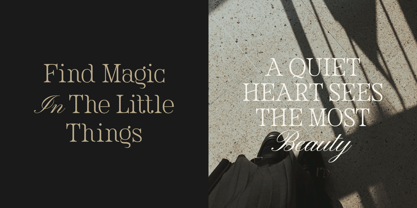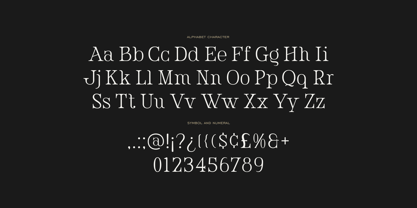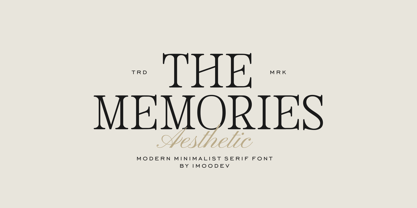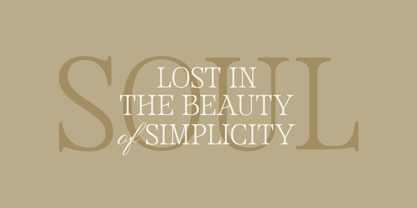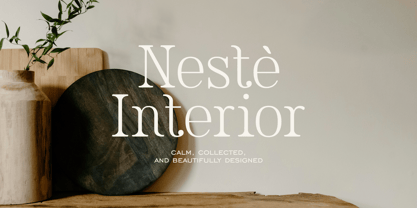
The Memories
Die Schriftfamilie The Memories wurde von Aulia Savira Putri entworfen und von Imoodev veröffentlicht. The Memories enthält 1 Stile. Mehr über diese Familie
The Memories is a timeless and elegant editorial serif font that brings a touch of classic sophistication to any project. This font is crafted with a keen eye for detail, featuring a beautiful contrast between its thick and thin strokes, which creates a refined and highly readable text.
The letterforms are based on traditional typography, with graceful, bracketed serifs that make it perfect for both headlines and body text. Perfect for this font is incredibly versatile and works wonderfully for luxury branding, fashion, wedding invitations, editorial design, fashion layouts, quote graphics, logos, and any project requiring a blend of vintage charm and modern elegance.
Designer: Aulia Savira Putri
Foundry: Imoodev